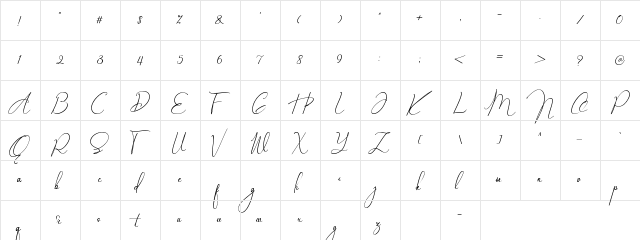
Magic Butter Regular
Design Context for Magic Butter Typeface
Magic Butter is a composed and adaptable typeface that performs quietly and consistently across a wide range of design contexts.